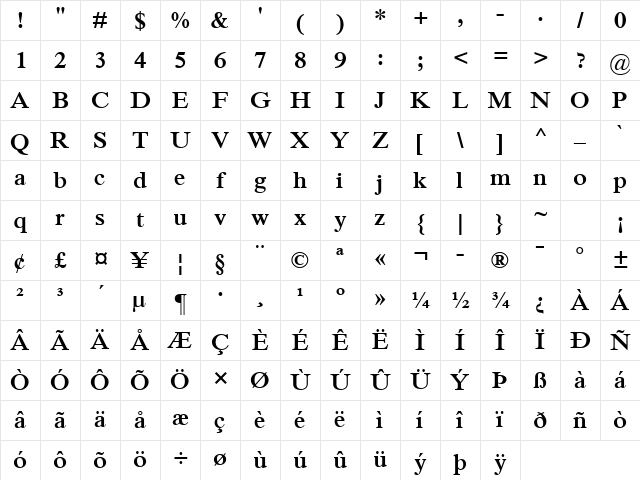
Complete Iskoola Pota Bold glyph index. Displaying only characters natively supported by Iskoola Pota Bold font.
Iskoola Pota is a composed and adaptable typeface that performs quietly and consistently across a wide range of design contexts. Its bold stroke weight gives it real presence on the page.